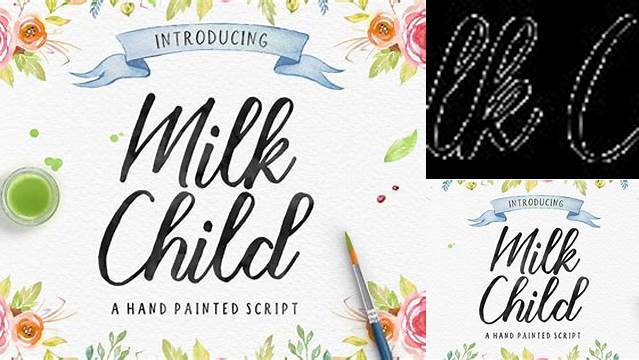
Milk Child Font: Free Download & Usage Guide
Hey guys! Are you on the hunt for a font that's as unique and playful as it is versatile? Look no further! In this article, we're diving deep into the world of Milk Child font, a typeface that's been making waves in the design community. Whether you're a seasoned designer or just starting out, this guide will walk you through everything you need to know about Milk Child font and how to get your hands on it for free. We'll cover its history, design characteristics, ideal use cases, and, most importantly, where you can download it without spending a dime. So, buckle up and let's explore the whimsical world of Milk Child font!
What is Milk Child Font?
Let's kick things off by getting to know our star of the show: Milk Child font. This typeface isn't your run-of-the-mill font; it's a handcrafted, display font that exudes a playful and quirky charm. Think of it as the font equivalent of a warm hug from your favorite childhood book. Milk Child font is characterized by its irregular lines, rounded edges, and a slightly whimsical feel, making it perfect for projects that need a touch of personality and fun.
Designed with love and attention to detail, Milk Child font stands out for its unique character set. Each letterform is carefully crafted to create a cohesive yet slightly imperfect look, adding to its overall charm. The font's playful nature makes it ideal for a wide range of applications, from children's books and branding to posters and social media graphics. Its versatility lies in its ability to be both eye-catching and readable, a rare combination in display fonts. Milk Child font is more than just a typeface; it's a tool that can inject personality and warmth into any design project. Whether you're working on a project for kids or simply want to add a touch of whimsy to your work, Milk Child font is a fantastic choice.
The History and Design of Milk Child Font
To truly appreciate Milk Child font, it's essential to understand its history and the design philosophy behind it. While the exact origins of the font might be shrouded in a bit of mystery (like many indie fonts), its design speaks volumes about the creator's vision. Milk Child font is often the result of an independent designer's passion project, a labor of love aimed at creating a typeface that stands out from the crowd. These designers often draw inspiration from various sources, including vintage lettering, hand-drawn illustrations, and even their own childhood memories. This personal touch is what gives Milk Child font its unique character and charm.
The design of Milk Child font is characterized by its deliberate imperfections. Unlike the sleek and polished look of many contemporary fonts, Milk Child embraces a more organic and hand-drawn aesthetic. This is evident in its slightly irregular lines, rounded terminals, and varying stroke weights. These subtle imperfections are what give the font its playful and approachable feel. The rounded edges soften the letterforms, making them appear friendly and inviting. The varying stroke weights add a dynamic element, preventing the font from looking too uniform or predictable. All these elements combine to create a typeface that's both visually appealing and highly readable, especially in display settings.
Milk Child font often includes a variety of weights and styles, allowing designers to use it in different contexts. Some versions may include bold and italic variations, while others might offer a range of stylistic alternates or ligatures. This versatility makes Milk Child font a valuable asset for any designer looking to add a touch of personality to their work. The font's ability to convey a sense of fun and playfulness makes it particularly well-suited for projects targeting children or those with a young-at-heart sensibility. However, its unique character also makes it a great choice for branding projects, posters, and other designs that need to stand out from the crowd.
Ideal Use Cases for Milk Child Font
Now that we know what makes Milk Child font tick, let's talk about where it truly shines. This font isn't a one-size-fits-all solution, but when used in the right context, it can elevate your designs to a whole new level. Think of Milk Child font as your go-to choice for projects that need a dash of fun, a sprinkle of whimsy, and a whole lot of personality.
One of the most obvious and effective use cases for Milk Child font is in children's books and educational materials. Its playful and approachable nature makes it perfect for engaging young readers. Imagine the title of a children's book or the headings in a workbook set in Milk Child font – it instantly creates a sense of excitement and curiosity. The font's rounded edges and slightly irregular lines are reminiscent of hand-drawn illustrations, making it feel warm and inviting. This makes it an excellent choice for creating a visual connection with children and fostering a love of reading. Moreover, Milk Child font can be used effectively in educational games, posters, and other materials designed for young learners.
Beyond children's content, Milk Child font is also a fantastic option for branding and marketing materials that aim to convey a sense of playfulness or creativity. Think about brands that cater to a younger audience or those that want to project a friendly and approachable image. Milk Child font can be used in logos, website headers, social media graphics, and even packaging design. Its unique character helps brands stand out from the competition and create a memorable impression. For instance, a toy store might use Milk Child font in its logo to convey a sense of fun and excitement. Similarly, a bakery could use it in its signage to create a warm and inviting atmosphere. The key is to use it strategically and in a way that aligns with the brand's overall identity.
Another area where Milk Child font excels is in posters and event invitations. Whether you're designing a poster for a school play, a community festival, or a birthday party, Milk Child font can add a touch of whimsy and personality. Its eye-catching design ensures that your message stands out, while its playful nature creates a sense of excitement. The font can be used for headlines, subheadings, and even body text (although readability should be considered for longer paragraphs). Similarly, Milk Child font is a great choice for creating unique and memorable invitations. Whether it's a children's birthday party or a casual gathering, the font's playful charm will set the tone for a fun and relaxed event.
Where to Find Milk Child Font for Free Download
Alright, guys, the moment you've been waiting for! You're probably itching to get your hands on Milk Child font and start using it in your projects. The good news is that there are several places where you can find this awesome font for free download. However, it's crucial to be cautious and ensure that you're downloading from reputable sources to avoid any potential issues like malware or copyright infringement.
One of the best places to start your search is on reputable font websites that offer free font downloads. These websites often have a wide selection of fonts, including Milk Child font, and they typically vet the fonts to ensure they are safe to download and use. Some popular options include:
- Google Fonts: While Milk Child font might not be directly available on Google Fonts (as it's a more niche typeface), it's always worth checking as their library is constantly expanding. Plus, Google Fonts offers a vast collection of other free fonts that you might find useful.
- Font Squirrel: Font Squirrel is another excellent resource for free fonts, and they have a great selection of high-quality typefaces. They also offer a handy font identifier tool that can help you find fonts similar to Milk Child if you can't find the exact one.
- DaFont: DaFont is a massive archive of free fonts, and it's a good place to look for Milk Child font. However, it's important to be mindful of the licensing terms, as some fonts may be free for personal use only.
When searching for Milk Child font on these websites, be sure to use specific keywords like "Milk Child font," "free playful font," or "quirky display font." This will help you narrow down your search and find the exact font you're looking for. Once you find the font, carefully review the licensing terms to ensure that you can use it for your intended purpose. Some fonts are free for both personal and commercial use, while others may have restrictions.
Another great way to discover free fonts like Milk Child is to explore online design communities and forums. Websites like Behance, Dribbble, and Reddit often have designers sharing their creations, including free fonts. Keep an eye out for posts or threads where designers are offering free fonts, and you might just stumble upon Milk Child font or a similar typeface. Additionally, joining online design communities can connect you with other designers who might be able to recommend resources for finding free fonts. Remember to always credit the font designer when using a free font in your projects, as it's a way of showing appreciation for their work.
Finally, don't forget to check the websites of independent font designers and foundries. Many independent designers offer free fonts as a way to promote their work and build their portfolio. You might find Milk Child font directly from its creator's website or on a platform like Creative Market or MyFonts, where they offer free fonts as part of promotional bundles or limited-time offers. Subscribing to newsletters from font foundries and designers is also a great way to stay informed about new free font releases.
Tips for Using Milk Child Font Effectively
So, you've downloaded Milk Child font and you're ready to unleash its playful charm on your designs. Awesome! But before you go wild, let's talk about some tips for using this font effectively. Like any design element, Milk Child font works best when used thoughtfully and strategically. Overusing it or using it in the wrong context can actually detract from your design rather than enhance it. So, let's dive into some best practices to ensure that you're making the most of this fantastic typeface.
First and foremost, consider the overall tone and message of your design. Milk Child font is inherently playful and whimsical, so it's best suited for projects that align with this aesthetic. Think about children's materials, branding for fun and approachable businesses, or creative event invitations. If your project has a more serious or formal tone, Milk Child font might not be the best choice. Using it in the wrong context can create a disconnect between your message and your visual presentation, which can confuse or even turn off your audience. For example, using Milk Child font in a legal document or a corporate report would likely be inappropriate.
Pairing Milk Child font with the right complementary fonts is crucial for creating a visually balanced and harmonious design. Since Milk Child font is a display font with a lot of personality, it's often best to pair it with a simpler, more neutral font for body text. This helps to ensure that your design doesn't become too overwhelming or chaotic. A classic sans-serif font like Open Sans or Montserrat can be a great choice for body text when paired with Milk Child font. These fonts are clean and readable, and they won't compete with the playful nature of Milk Child. Alternatively, a simple serif font like Lato or Roboto Slab can also work well, adding a touch of elegance without overpowering the overall design. Experiment with different font pairings to see what works best for your specific project, but always prioritize readability and visual hierarchy.
Use Milk Child font sparingly to maximize its impact. Because it's a display font with a strong personality, a little goes a long way. Overusing it can make your design look cluttered and overwhelming. Instead, focus on using Milk Child font for headlines, titles, and other key elements that you want to stand out. For body text and longer paragraphs, stick to a more neutral and readable font. This will help to create a clear visual hierarchy and ensure that your message is easily conveyed. Think of Milk Child font as a special ingredient that adds flavor to your design – a little bit can go a long way, but too much can ruin the dish.
Pay attention to the size and spacing of Milk Child font in your design. Because of its unique letterforms and playful nature, it's important to ensure that it's legible and visually appealing. Adjust the font size and letter spacing as needed to create a balanced and readable design. In some cases, you might need to increase the letter spacing to prevent the characters from feeling too crowded. Similarly, you might need to adjust the line height to ensure that the lines of text are properly spaced. Experiment with different settings until you achieve a look that's both visually appealing and easy to read. Remember, the goal is to make Milk Child font shine without sacrificing readability.
Conclusion: Embrace the Playfulness of Milk Child Font
So there you have it, guys! A comprehensive guide to Milk Child font, from its playful design and ideal use cases to where you can snag it for free and how to use it effectively. This font is a fantastic tool for adding a touch of whimsy and personality to your designs, and we hope this article has inspired you to explore its creative potential.
Milk Child font is more than just a typeface; it's a way to inject fun and playfulness into your visual communication. Whether you're designing a children's book, branding a creative business, or creating eye-catching event invitations, Milk Child font can help you stand out from the crowd and connect with your audience on a deeper level. Its unique character and handcrafted feel make it a valuable asset for any designer looking to add a touch of personality to their work.
Remember, the key to using Milk Child font effectively is to consider the overall tone and message of your design, pair it with complementary fonts, use it sparingly, and pay attention to size and spacing. By following these tips, you can ensure that Milk Child font enhances your designs and helps you achieve your creative goals. So go ahead, download Milk Child font, and let your imagination run wild! We can't wait to see what amazing things you create with it.